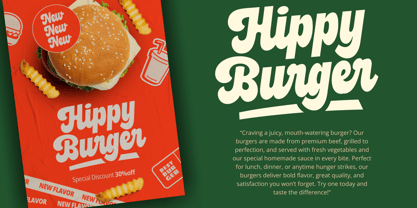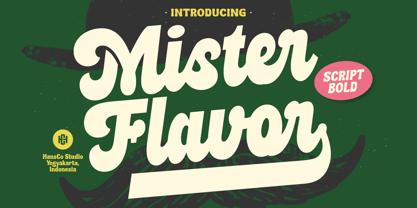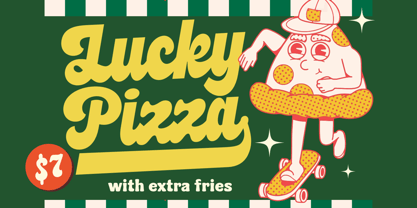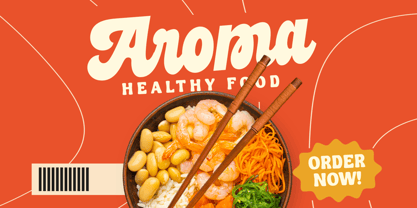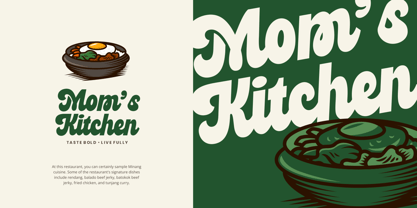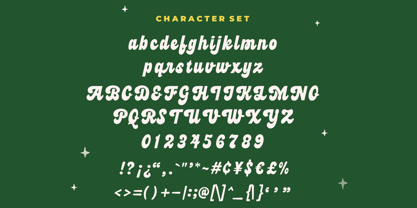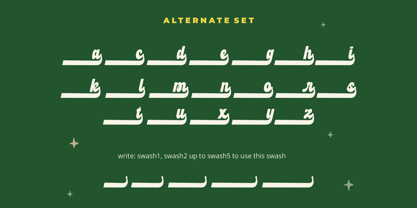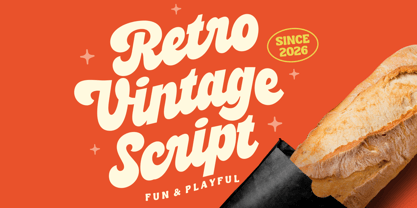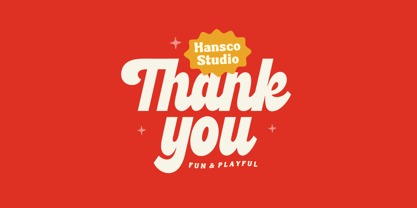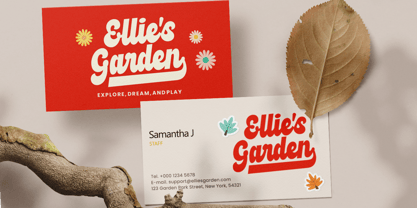
Mister Flavor
The Mister Flavor Font Family was designed by Burhan Afif and published by HansCo. Mister Flavor contains 1 styles. More about this family
Bring your brand to life with this bold modern script font designed to stand out. Featuring thick, confident strokes and elegant swash alternates, this font blends a stylish handwritten feel with a clean, contemporary look. Perfect for logos, branding, packaging, and social media designs, it adds personality and professionalism to any project. Whether you want something eye-catching or refined, this font gives you the flexibility to create a truly unique and memorable visual identity. Features : Uppercase & Lowercase Numbers & Punctuation Multilingual Alternate Character We highly recommend using a program that supports OpenType features and Glyphs panels like many of Adobe apps and Corel Draw, so you can see and access all Glyph variations. How to access alternate? : https://hanscostudio.com/tutorial/ Enjoy!